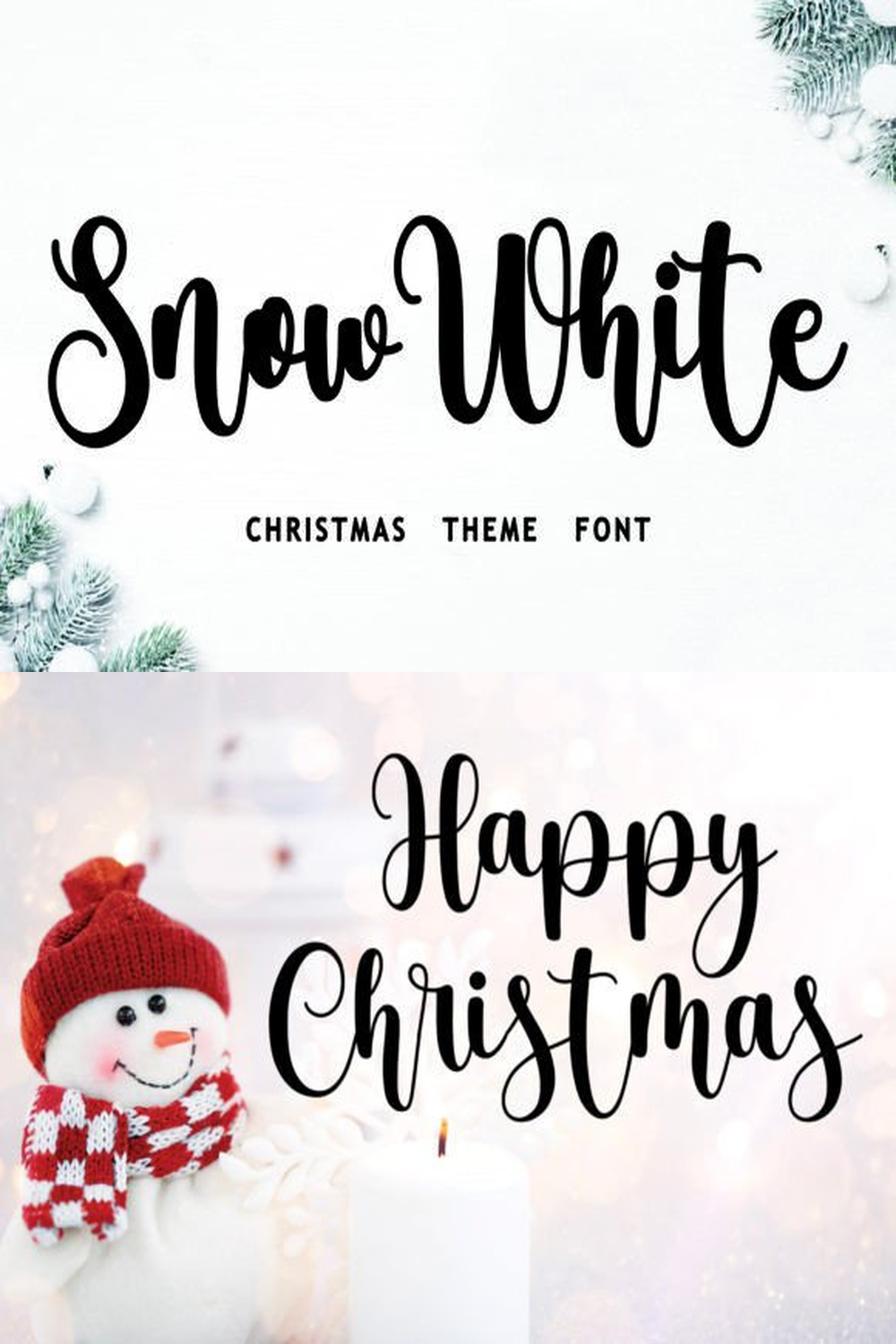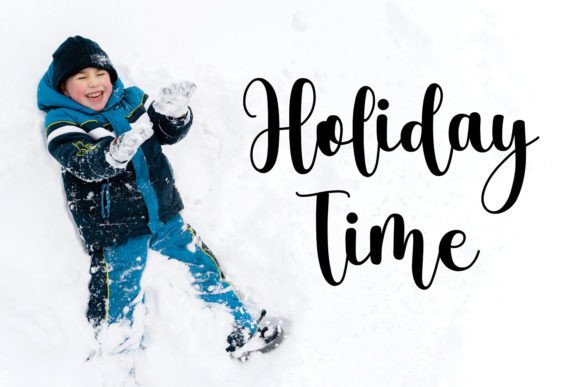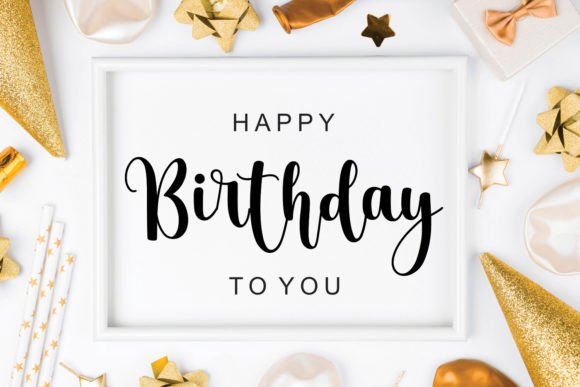
Snow White Font: A Cute Christmas Script for Cricut & DIY Projects
About the Snow White Font
Presenting Snow White Font, a unique and stylish typeface that will make your work stand out. The “Snow White” font is a charming embodiment of a cute script handwritten style, resonating with the festive spirit of Christmas, New Year, and the world of crafting and embroidery. This font encapsulates the essence of the holiday season with its delicate, whimsical strokes and adds a touch of crafty creativity to every character.
Each letter in the “Snow White” font is akin to an elegantly handcrafted ornament, with playful curls and swirls reminiscent of decorative holiday motifs. The script conveys a sense of warmth and familiarity, much like the cozy feeling of being wrapped in a handmade holiday quilt. Its design is filled with endearing details that bring to mind the joy of crafting and embroidery during the festive season.
The lowercase letters maintain a uniform height, ensuring legibility and a harmonious flow between characters. Meanwhile, the uppercase letters, slightly larger, exude an inviting charm that captures the eye’s attention with a sense of celebration.
This font is a perfect choice for holiday-themed designs, greeting cards, and crafting projects, as it seamlessly integrates the spirit of Christmas and New Year with the heartwarming artistry of handmade crafts. “Snow White” embodies the joyous traditions of the season, making it an ideal addition to your creative projects that celebrate the magic of the holidays and the art of crafting and embroidery.